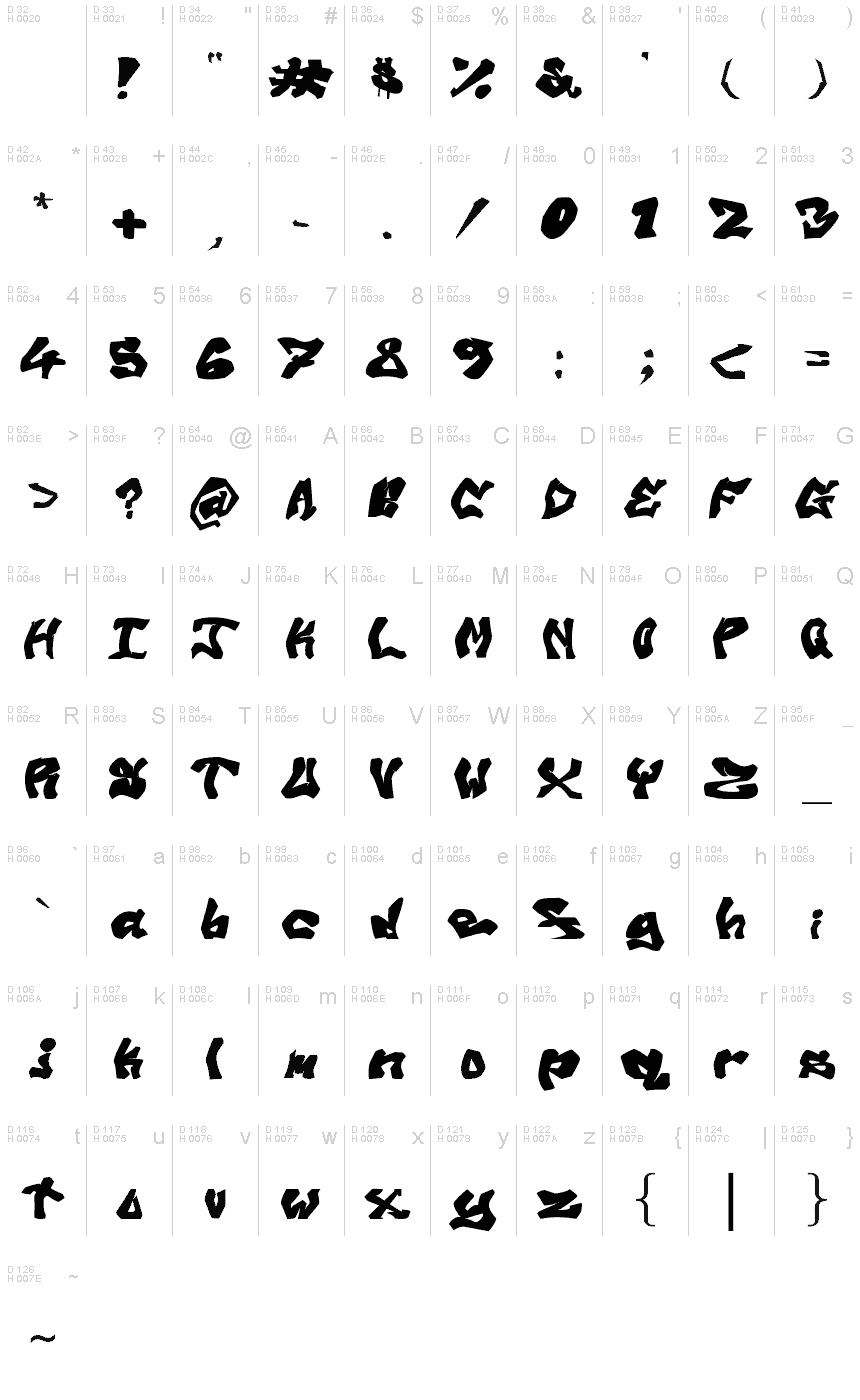
Old Skool Graff
Old Skool Graff is an assertive, bold graffiti-inspired font that exudes an urban energy. Designed by big_buz, this typeface features dynamic, fluid letterforms that evoke the rawness and spontaneity of hand-painted street art. The font's thick, uneven strokes and asymmetrical details lend it a raw, edgy aesthetic, making it a compelling choice for projects seeking a gritty, rebellious vibe.
From album covers to event posters, Old Skool Graff's strong, distinctive style can add a captivating visual impact across a range of design applications. Its versatility allows it to seamlessly transition between contexts, elevating everything from punk rock album art to urban fashion branding.